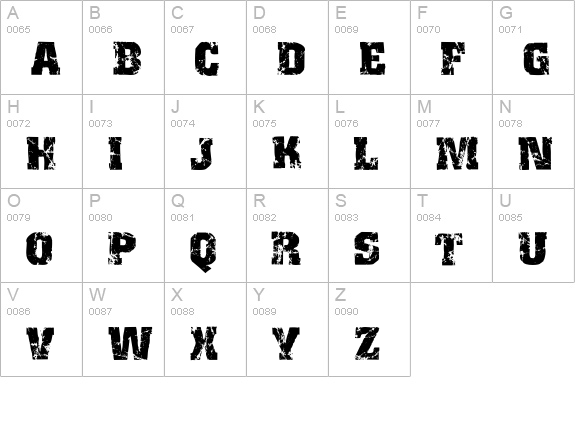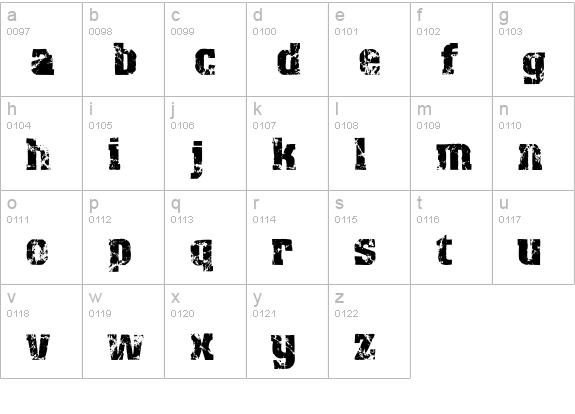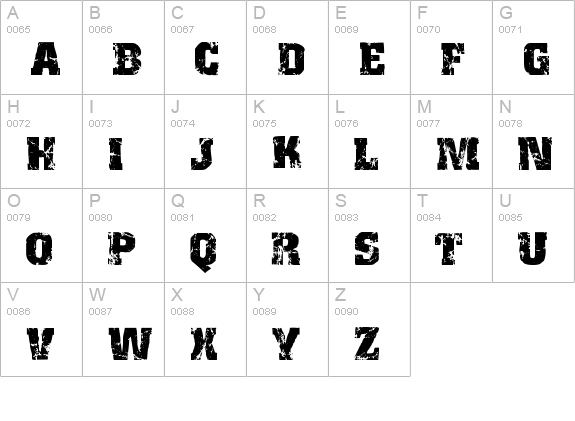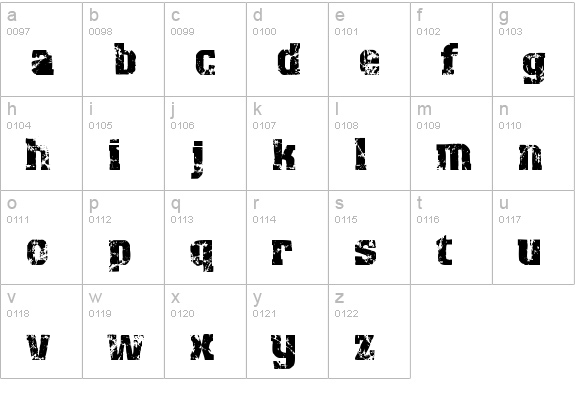
Distress Font Details
Distress font is a unique and edgy typeface that exudes a sense of ruggedness and character. With its rough and distressed appearance, this font is perfect for projects that require a touch of grunge or vintage flair. The irregular lines and worn-out edges give Distress font a handcrafted feel that sets it apart from traditional typefaces. Designed to make a statement, Distress font is ideal for posters, album covers, and branding materials that demand attention. Its bold and impactful style will add a touch of attitude to your designs, making them stand out from the crowd. Best of all, Distress font is free to download at FontsMarket.com, making it accessible to designers and creatives looking to add a touch of grit to their work. Whether you're working on a personal project or a client commission, Distress font is sure to elevate your designs and give them a raw and authentic appeal. Download it today and unleash the power of Distress font in your next creative endeavor.